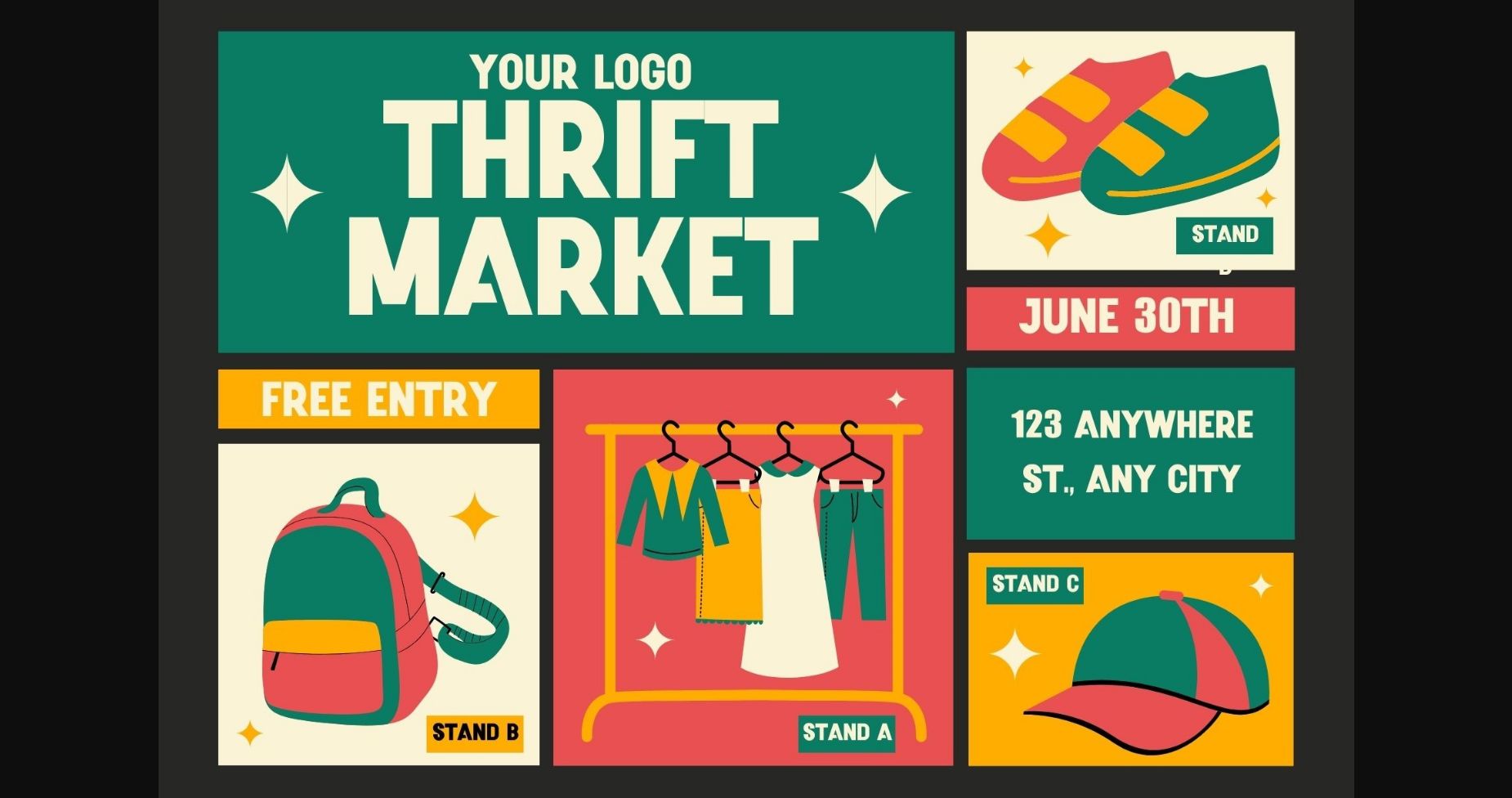
About Sartica Font
Sartica has a strong personality which makes it a perfect choice for display projects. Perfectly suited for a wide range of applications from branding and logos, to candy and food packages, Sartica is a bright and fun typeface.